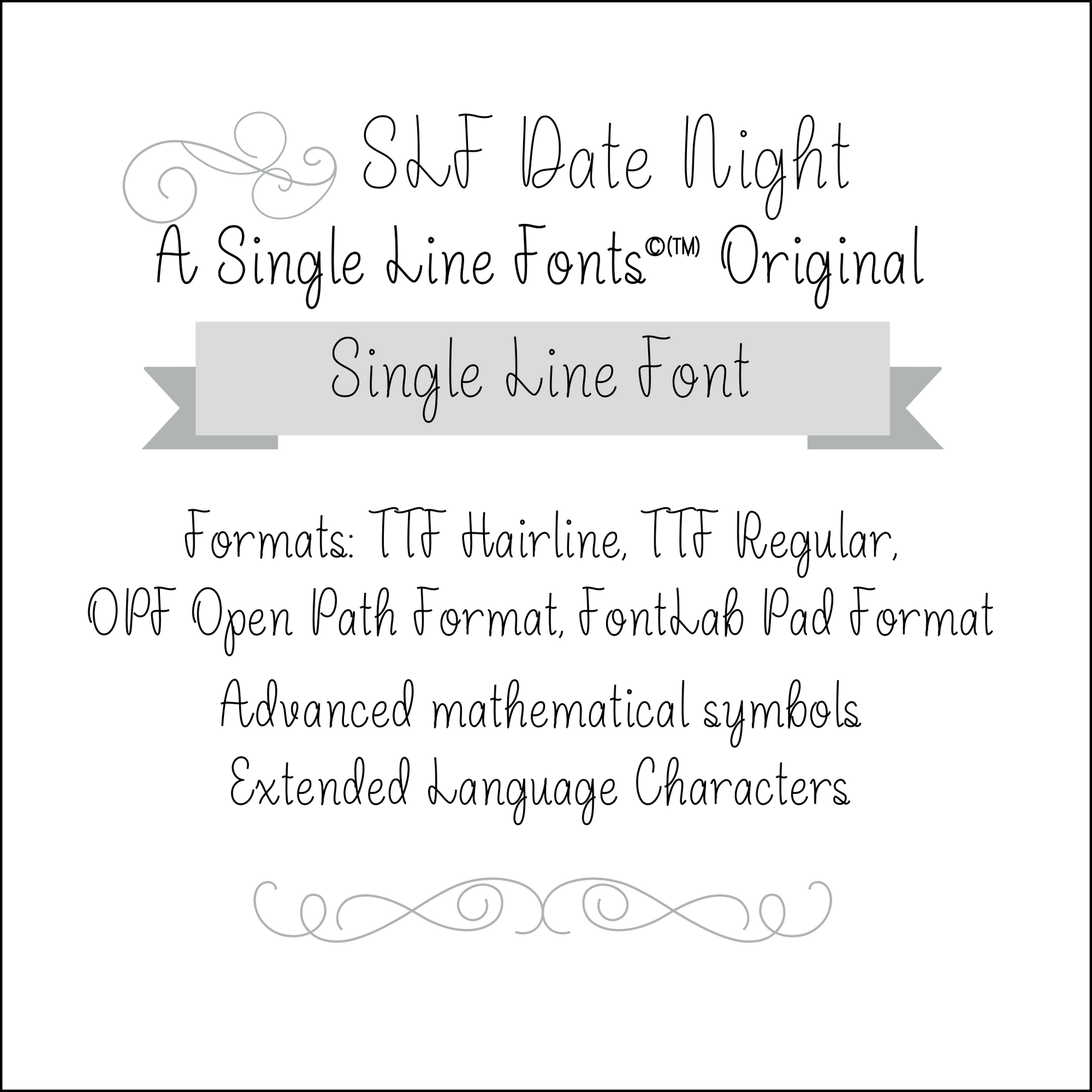
SLF Date Night – Single Line Print Font for Engraving & Crafting
SLF Date Night is a stylish single line print font with smooth, modern lettering that brings a touch of elegance to creative projects. Its clean character shapes work well in engraving, scoring, sketch pen tools, CNC routing, and personalized craft designs. Use it for invitations, signage, labels, decor, and thoughtful gift projects.
This monoline font includes a full character set with uppercase and lowercase letters, numbers, punctuation, symbols, and accented characters for multilingual support.